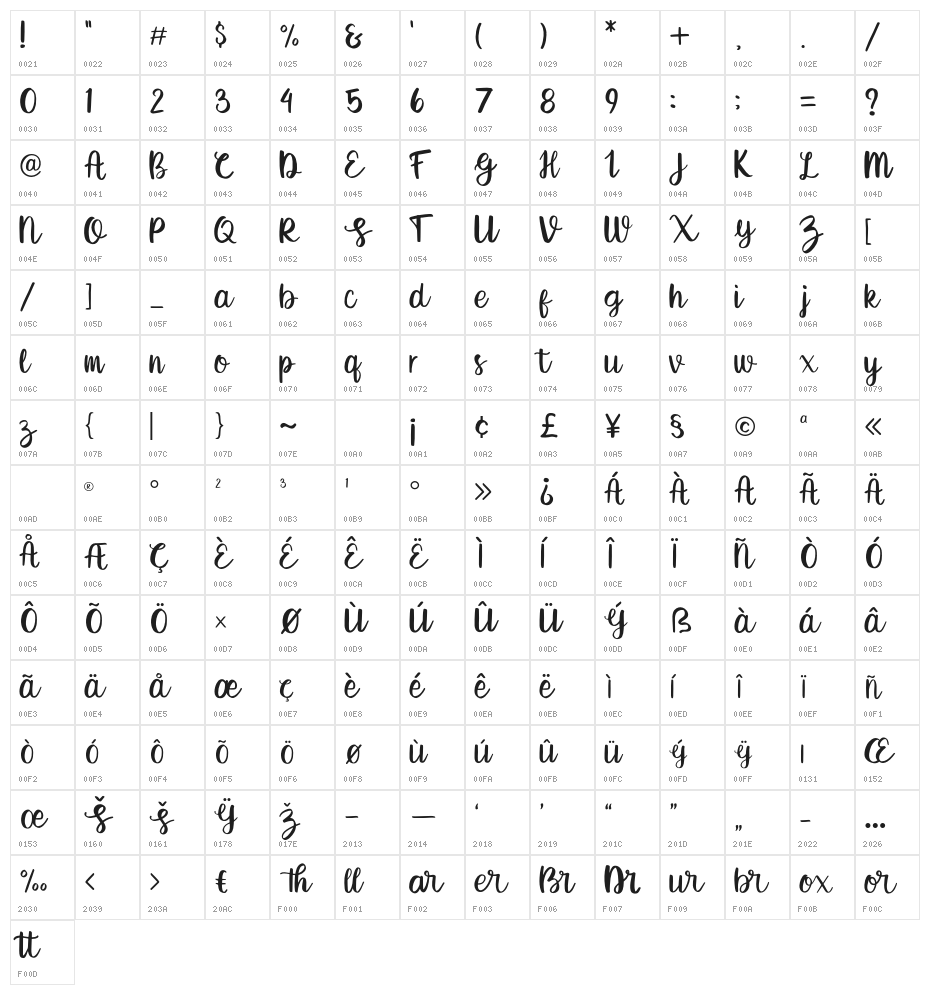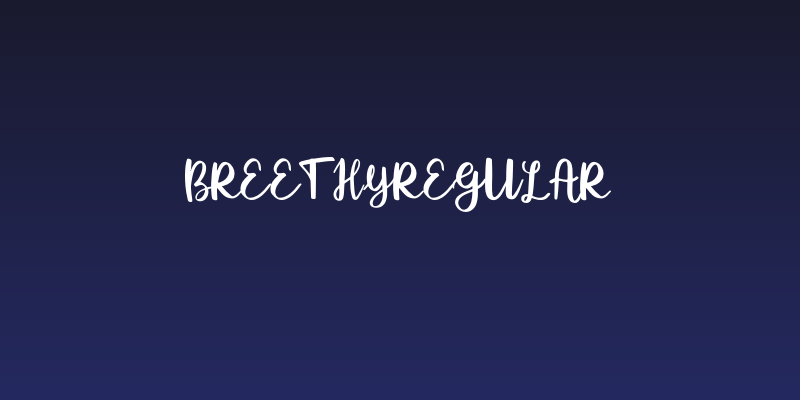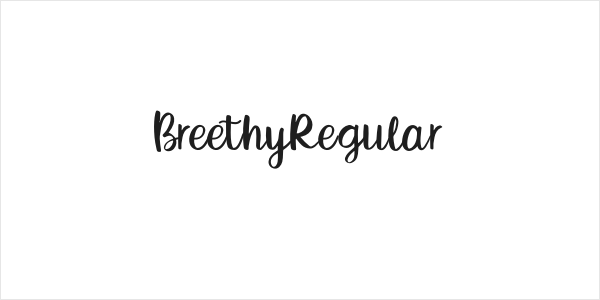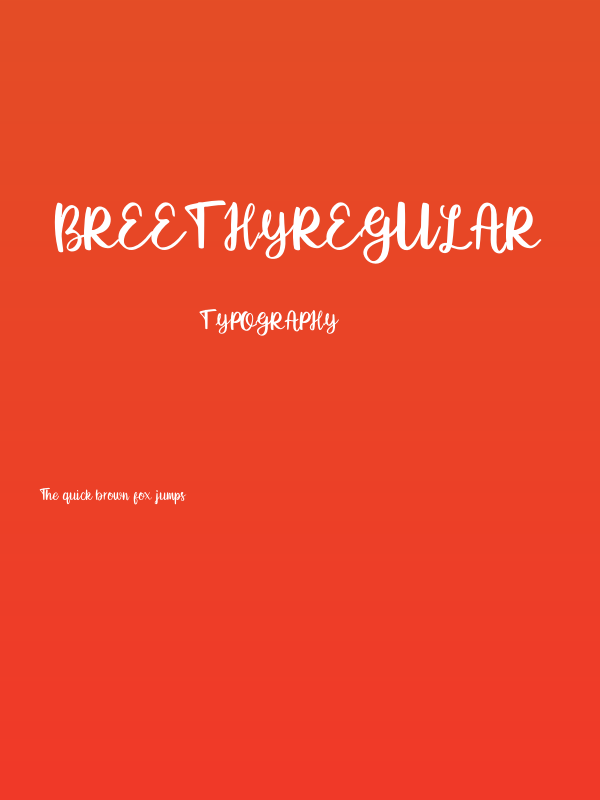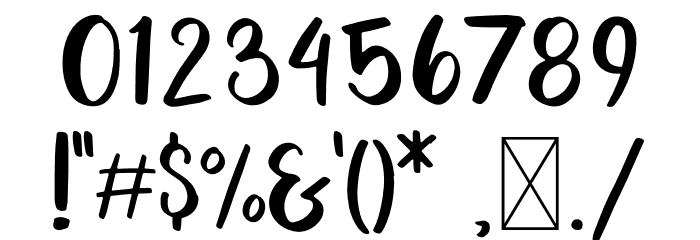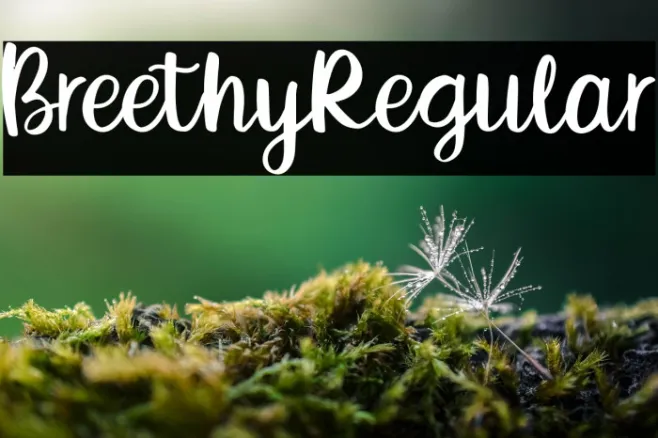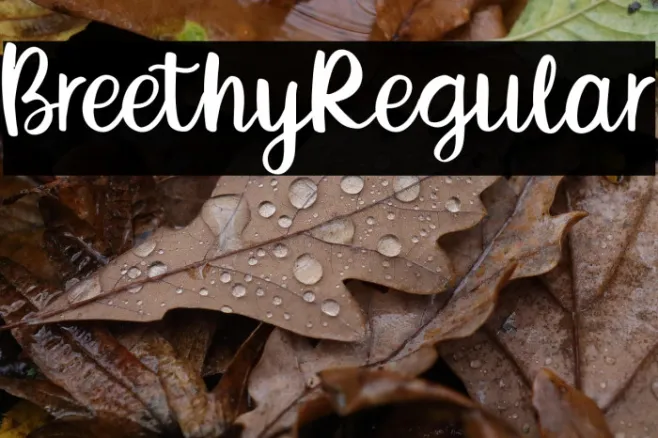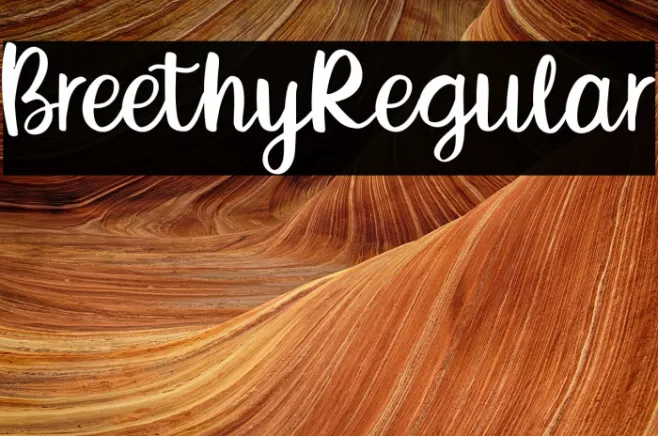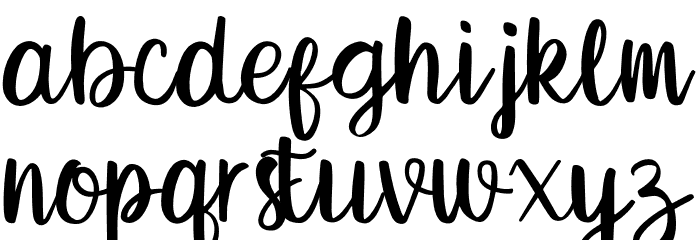
BreethyRegular Font
BreethyRegular Description
This font features a playful and flowing script style, characterized by its smooth, cursive letterforms that mimic natural handwriting. The uppercase letters are bold and expressive, with a slight slant that adds to the dynamic feel. The lowercase letters maintain a consistent style, with rounded edges and a fluid connection between characters. Numbers and special characters follow the same aesthetic, ensuring a cohesive look across all text. The overall appearance is both elegant and approachable, making it suitable for a variety of creative applications.